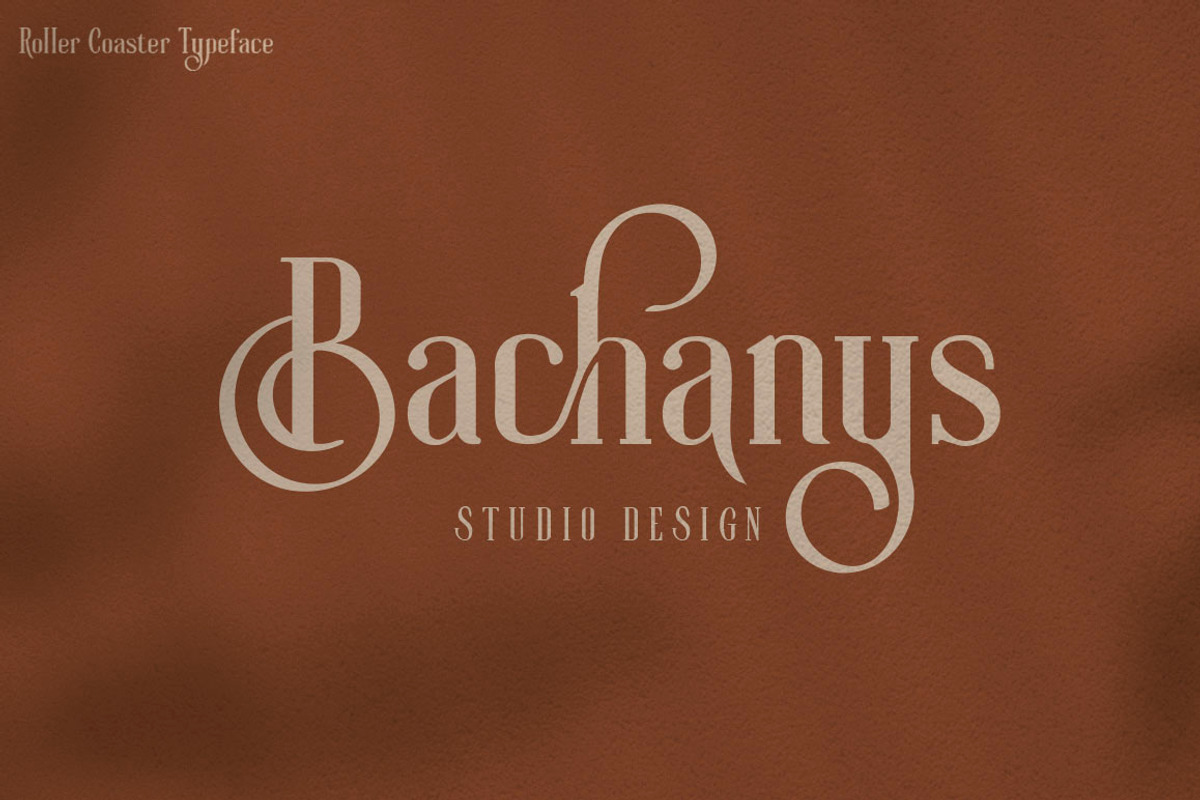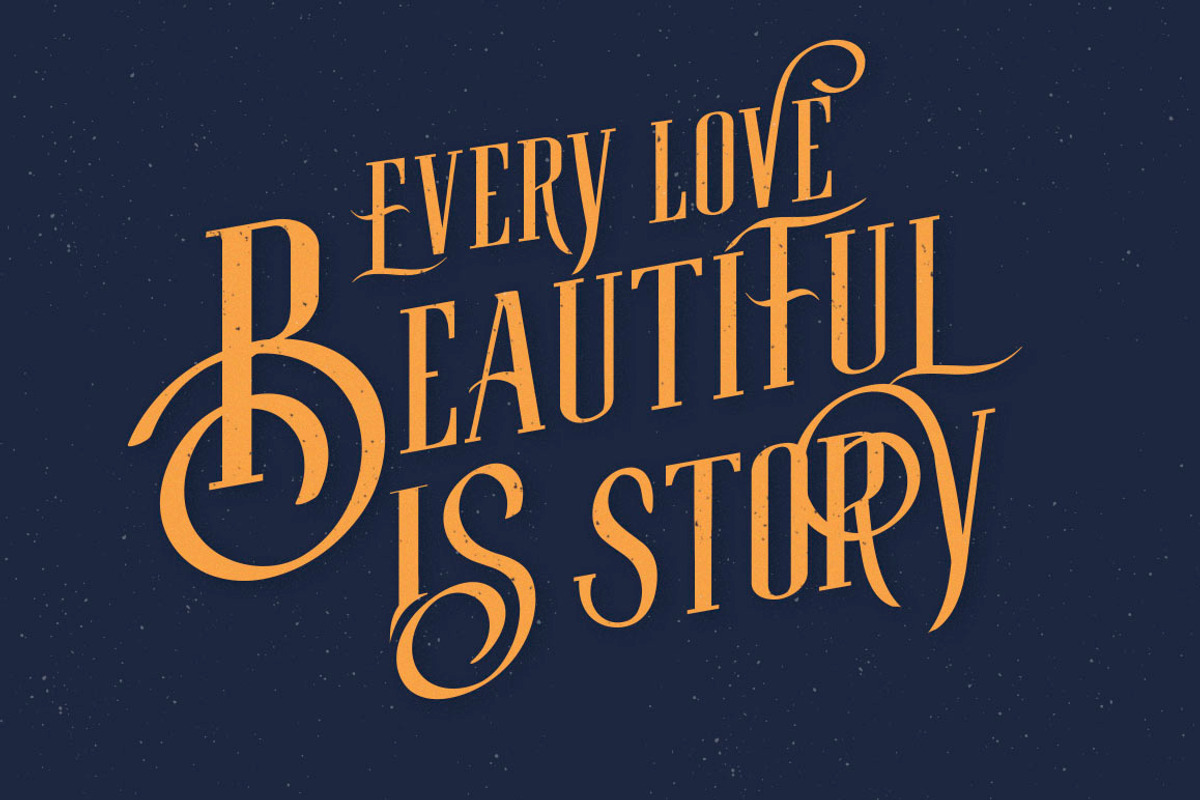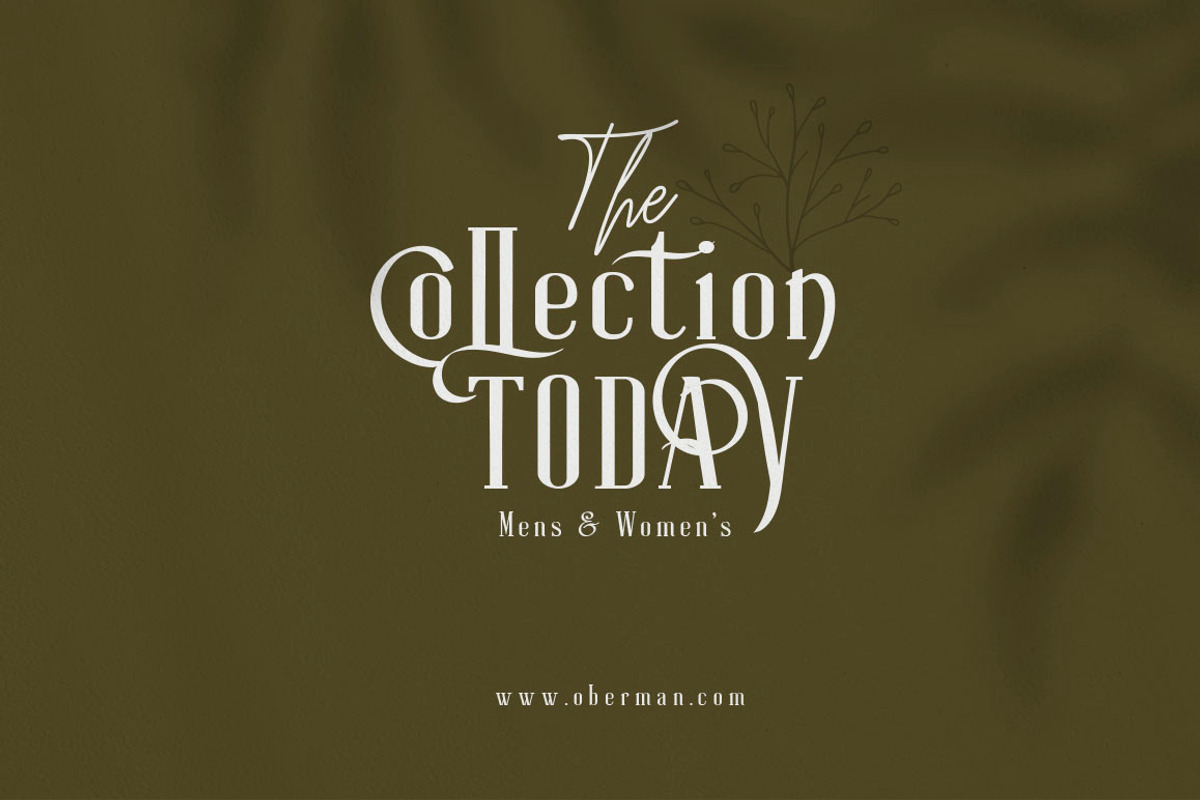
Roller Coaster is a serif that is decorative, vintage and antique and elegant. The neat and beautiful font shape makes this font easy to remember as a modern font.
Roller Coaster making it a versatile type that can be used in various projects. No matter what type of project you are working on, this font can help you simplify your work.
- Floral Ornament
- Alternates Character
- Standard Ligatures